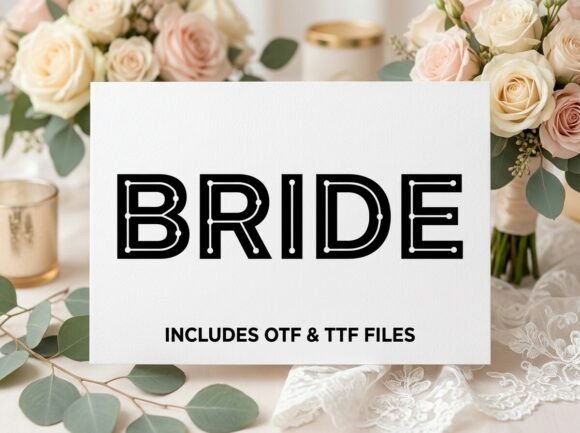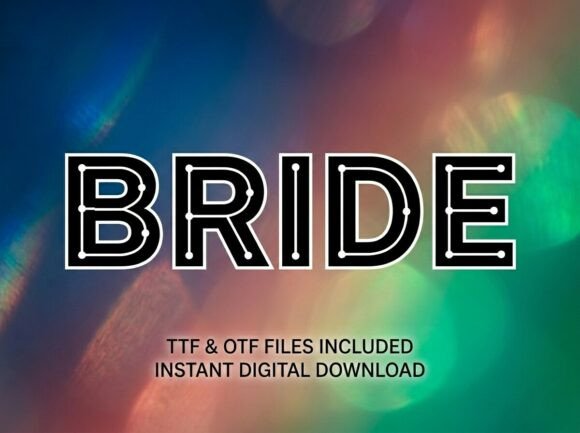
Introducing Bride Font: The Ultimate Decorative Display Font for Creators
Are you tired of using the same old fonts for your designs? Look no further! Bride Font is a stunning decorative display font that is sure to make your creations stand out from the crowd. With its unique artistic elements and strong visual personality, this font is perfect for designers, crafters, and creators who want to add a touch of elegance and sophistication to their work.
What Makes Bride Font So Special?
Bride Font is a versatile font that is designed to be the center of attention. Its unique artistic elements and strong visual personality make it perfect for a variety of design projects, including bold headlines, artistic logos, and creative packaging. Whether you’re a professional designer or a crafty DIY enthusiast, Bride Font is sure to help you create stunning designs that will leave a lasting impression.
Key Features of Bride Font
- Unique Artistic Elements: Bride Font features unique artistic elements that set it apart from other fonts. Each letter is carefully crafted to create a stunning visual effect that will add a touch of elegance to your designs.
- Strong Visual Personality: This font has a strong visual personality that is sure to make your designs stand out. Whether you’re creating a bold headline or a beautiful logo, Bride Font is sure to make a statement.
- Versatile: Bride Font is versatile enough for a variety of design projects, including bold headlines, artistic logos, and creative packaging.
- Professional and Polished Finish: Despite its decorative nature, Bride Font maintains a professional and polished finish that is sure to impress.
Why Choose Bride Font?
There are many reasons why you should choose Bride Font for your design projects. Here are just a few:
- Unique and Eye-Catching: Bride Font is a unique and eye-catching font that is sure to make your designs stand out.
- High-Quality: This font is of high quality and is sure to add a touch of elegance and sophistication to your designs.
- Versatile: Bride Font is versatile enough for a variety of design projects, making it a great addition to your font collection.
How to Use Bride Font
Bride Font is easy to use and can be used in a variety of design projects. Here are a few ideas:
- Headlines: Use Bride Font to create bold and eye-catching headlines that will grab attention.
- Logos: This font is perfect for creating artistic logos that will add a touch of elegance to your brand.
- Packaging: Use Bride Font to create creative and eye-catching packaging that will stand out on store shelves.
- Social Media Graphics: This font is perfect for creating social media graphics that will add a touch of sophistication to your online presence.
In conclusion, Bride Font is a stunning decorative display font that is sure to make your designs stand out. With its unique artistic elements and strong visual personality, this font is perfect for designers, crafters, and creators who want to add a touch of elegance and sophistication to their work. Whether you’re creating bold headlines, artistic logos, or creative packaging, Bride Font is sure to help you create stunning designs that will leave a lasting impression.